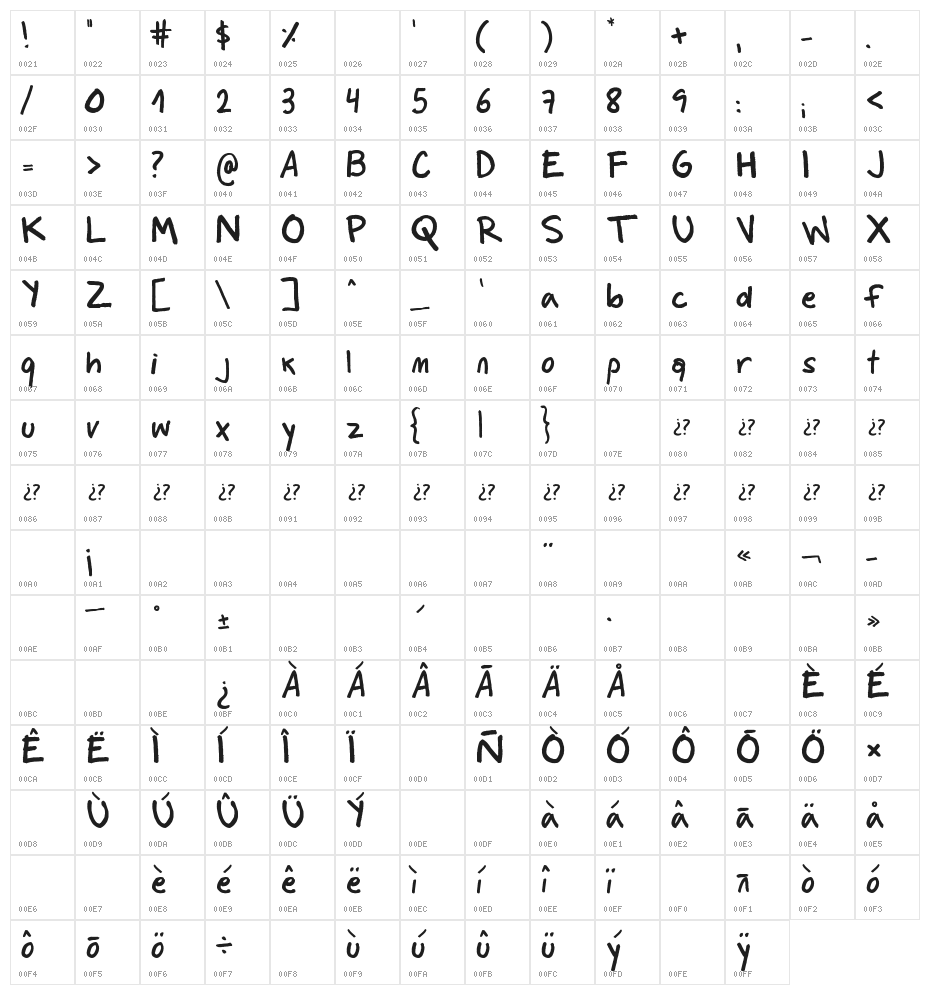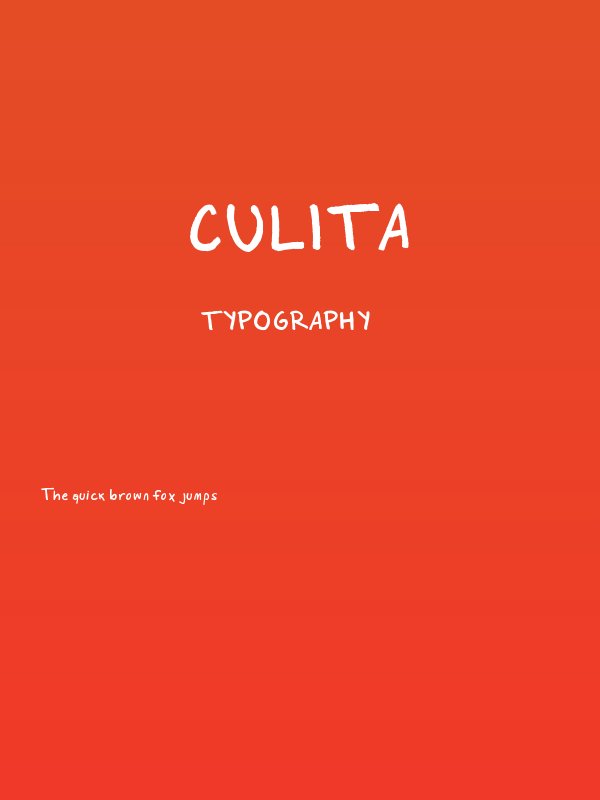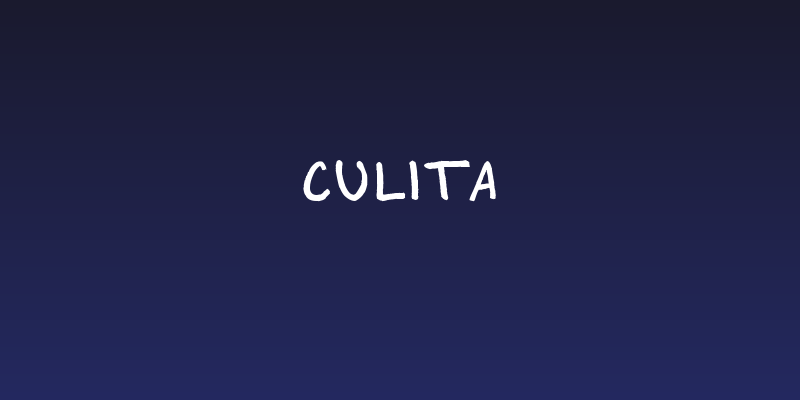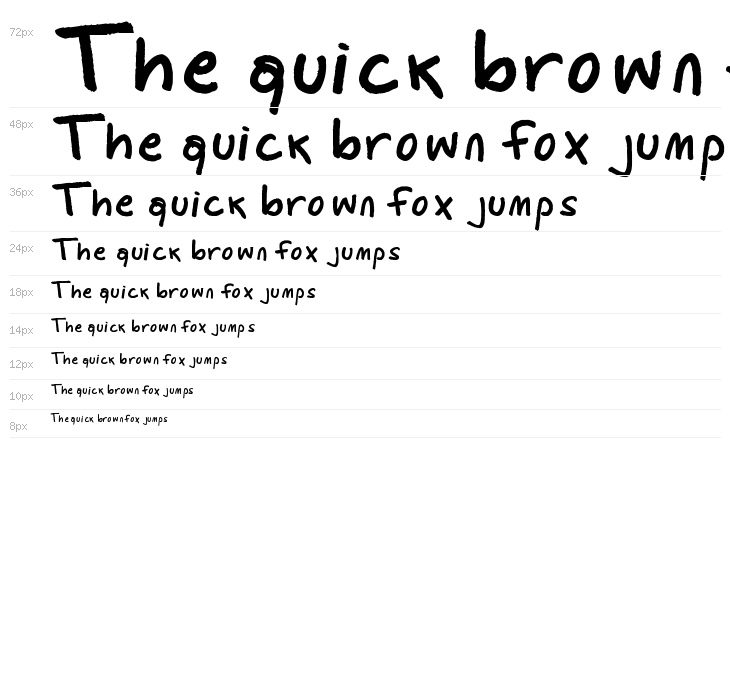
Culita Font
Culita Description
This font features a playful and casual handwritten style, characterized by its uneven strokes and slightly irregular letterforms. The uppercase and lowercase letters maintain a consistent aesthetic, with rounded edges and a friendly appearance. The numbers and special characters follow the same informal style, making the font versatile for various creative projects. Its organic and spontaneous look adds a personal touch to any design, making it ideal for projects that require a human element. The font's overall appearance is approachable and lively, perfect for conveying warmth and authenticity.
| Use Case | Logos, Headlines, Informal Text |
| Proposed Projects | Ideal for greeting cards, children's books, personal branding, and informal invitations. |